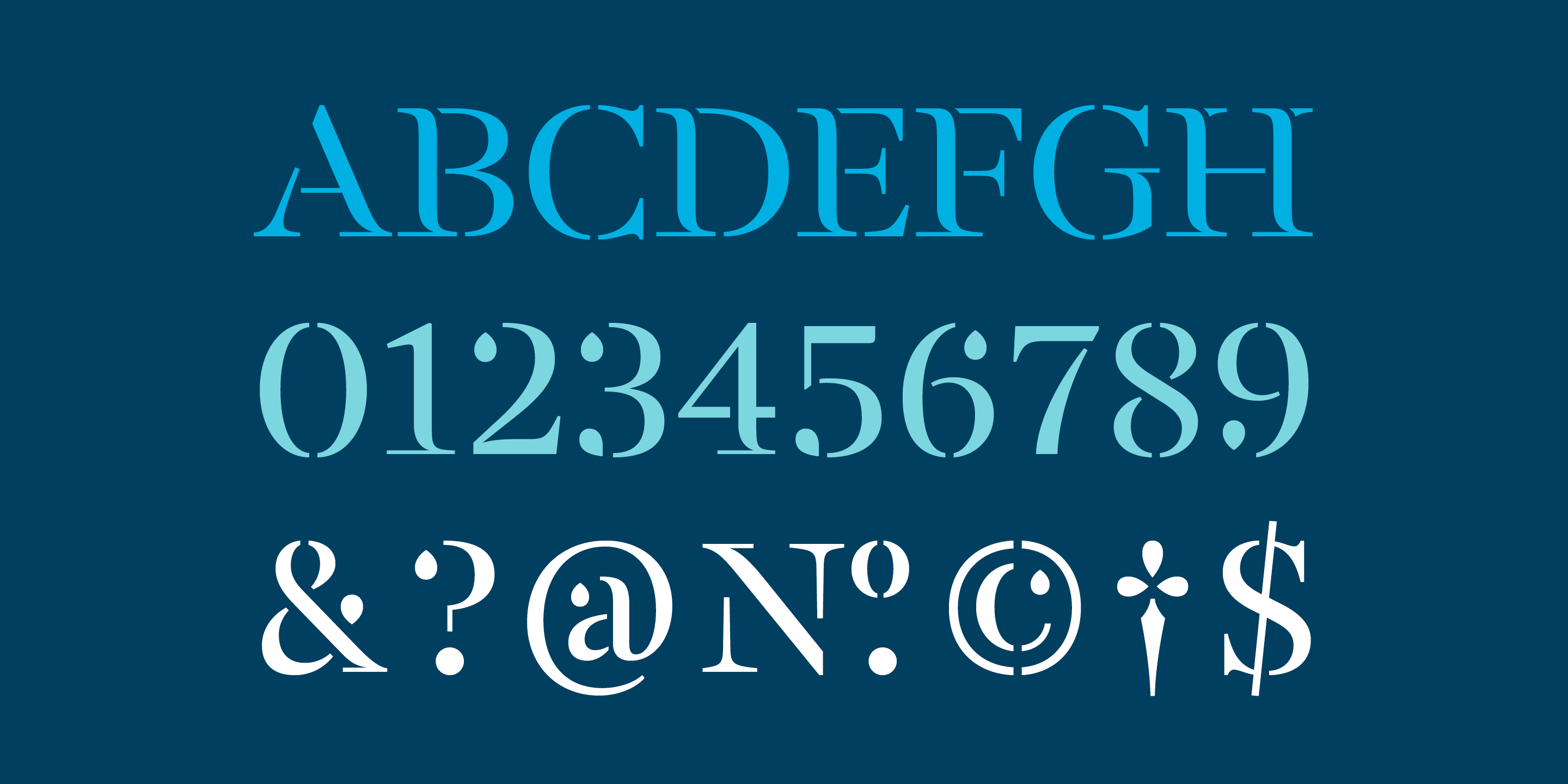
FS Renaissance Font is perfect for luxury art galleries, classical music venues, prestigious museum exhibitions, fine art publications, cultural heritage materials, aristocratic event invitations, sophisticated literary journals, and distinguished academic institutions.
This font is exciting because it revives the artistic magnificence and intellectual sophistication of the Renaissance era with elegantly refined letterforms that embody centuries of cultural achievement and humanistic ideals. The FS Renaissance Font captures the essence of artistic rebirth and scholarly excellence, transforming ordinary text into cultured expressions that celebrate the timeless values of learning, beauty, and intellectual pursuit that defined the Renaissance spirit.
The FS Renaissance Font family includes culturally rich variations such as Regular, Bold, Light, Italic, Humanist, Classical, Condensed, and Extended versions, providing cultural designers with comprehensive tools to create sophisticated typography that honors Renaissance traditions and celebrates artistic excellence across all cultural applications and scholarly communications.
Revive cultural excellence with FS Renaissance Font Free Download that brings Renaissance sophistication to every cultural design project. This masterfully crafted typeface combines historical authenticity with contemporary functionality, making it perfect for cultural institutions, art museums, and organizations celebrating the humanities and artistic heritage. The font's refined character design ensures your message conveys cultural authority and intellectual sophistication while maintaining excellent readability across all scholarly applications. Whether you're developing museum exhibition materials, creating cultural event communications, or designing publications that celebrate arts and humanities, FS Renaissance Font delivers the distinguished typography that resonates with audiences who appreciate cultural refinement and intellectual discourse. Its versatile design works beautifully across digital and print media while preserving the Renaissance elegance that makes cultural communications feel genuinely sophisticated and worthy of the respect that comes from celebrating human achievement in arts, literature, and the pursuit of knowledge that defines our highest cultural aspirations and intellectual heritage.